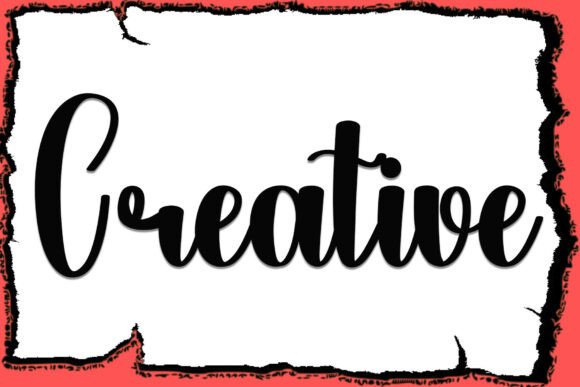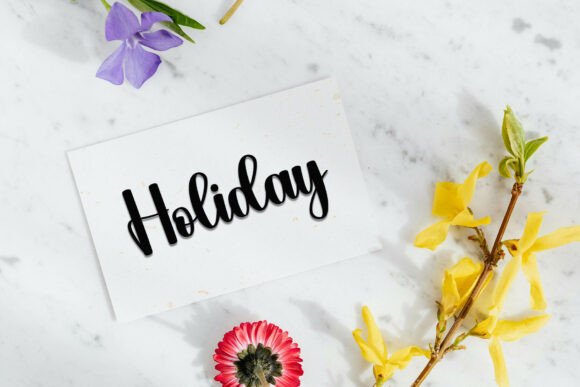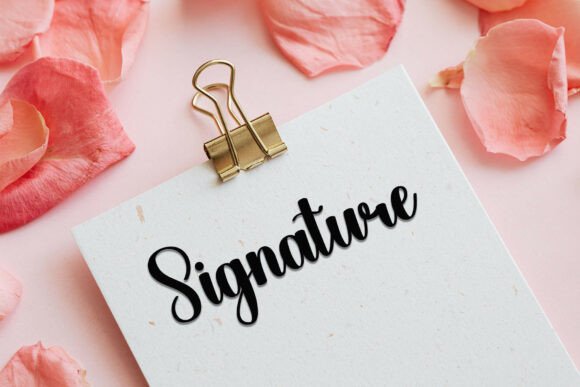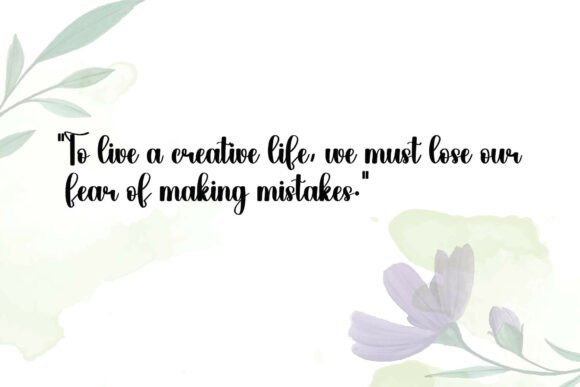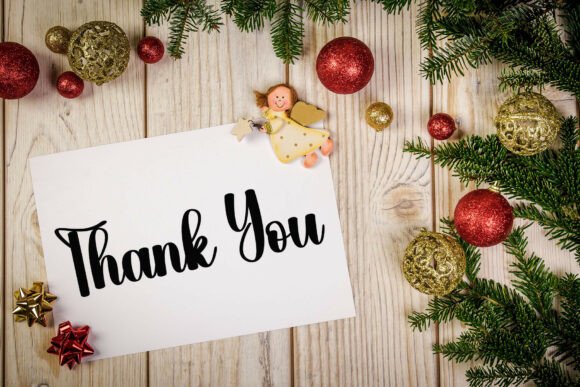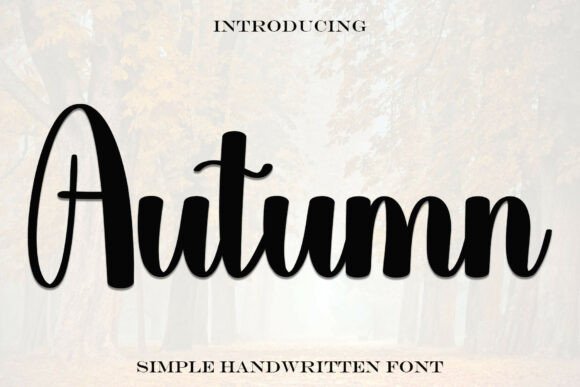
Introducing Autumn Font: Elevate Your Designs with Timeless Elegance
Are you a designer or crafter looking for a font that exudes sophistication and style? Look no further than Autumn Font, a trendy handwritten font that brings a contemporary atmosphere and impeccable form to your design projects. Inspired by timeless classic calligraphy, Autumn Font is the perfect addition to any creative endeavor.
The Inspiration Behind Autumn Font
Autumn Font draws inspiration from the classic calligraphy of the past, with a modern twist. The font’s creator aimed to capture the essence of traditional calligraphy, while infusing it with a fresh and contemporary feel. The result is a font that is both elegant and modern, perfect for designers and crafters who want to add a touch of sophistication to their work.
Key Features of Autumn Font
- Handwritten style: Autumn Font boasts a beautiful, handwritten style that adds a personal touch to any design project.
- Contemporary atmosphere: The font’s modern feel ensures that it will complement a wide range of design styles, from minimalist to elaborate.
- Impeccable form: Autumn Font’s precise and elegant letterforms make it perfect for use in a variety of applications, including logos, titles, and body text.
- Timeless classic calligraphy inspiration: The font’s inspiration from classic calligraphy ensures that it will remain a timeless and versatile choice for years to come.
Uses for Autumn Font
Autumn Font is an incredibly versatile font that can be used in a wide range of design projects, including:
- Logos and branding: Add a touch of elegance to your logo or brand identity with Autumn Font.
- Stationery and invitations: Create beautiful, high-end stationery and invitations with Autumn Font.
- Packaging and product design: Elevate your packaging and product design with the sophisticated style of Autumn Font.
- Web design and development: Use Autumn Font to add a touch of class to your website or web application.
Why Choose Autumn Font?
With so many fonts available, why choose Autumn Font? Here are just a few reasons why designers and crafters love this font:
- Elegance and sophistication: Autumn Font adds a touch of elegance and sophistication to any design project.
- Versatility: The font’s versatility ensures that it can be used in a wide range of applications and design styles.
- Easy to read: Autumn Font’s clear and precise letterforms make it easy to read, even at small sizes.
- Unique and creative: With Autumn Font, you can add a unique and creative touch to your design projects.
Autumn Font is a stunning, trendy handwritten font that brings a contemporary atmosphere and impeccable form to your design projects. Inspired by timeless classic calligraphy, this font is perfect for designers and crafters who want to add elegance and sophistication to their work. With its versatility, ease of use, and unique style, Autumn Font is sure to become a favorite in your design toolkit.